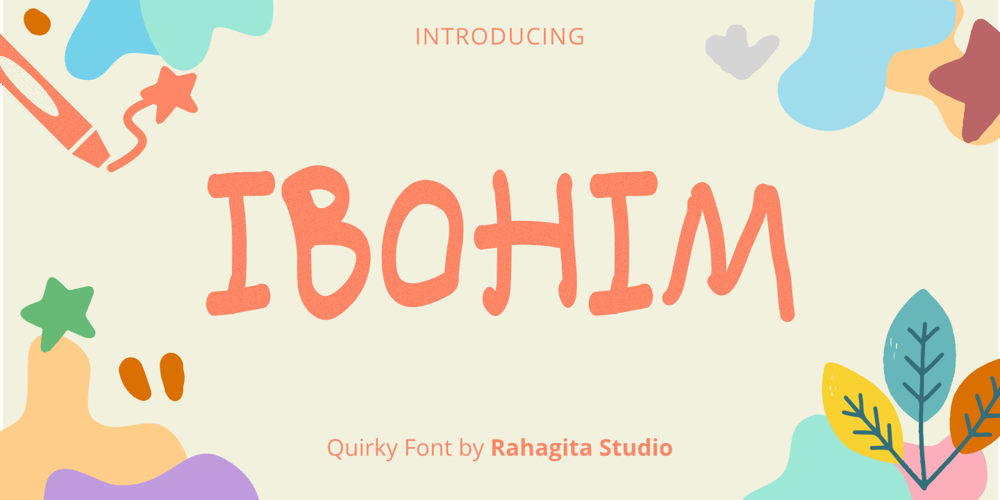
Ibohim Font Family was designed by Setiadi Rahagita and published by RahagitaType. Ibohim contains 1 styles and family package options. Step into a world of whimsy and creativity with Ibohim, a one-of-a-kind children’s font. Its irregular, cute, and simple design adds a delightful touch of fun to any project. Embodying the spirit of imaginative freedom for children, Ibohim is more than just a font; it’s an invitation to explore boundless creativity. Enliven your designs and captivate young minds with the playful charm of Ibohim font – where every character sparks the joy of limitless imagination.